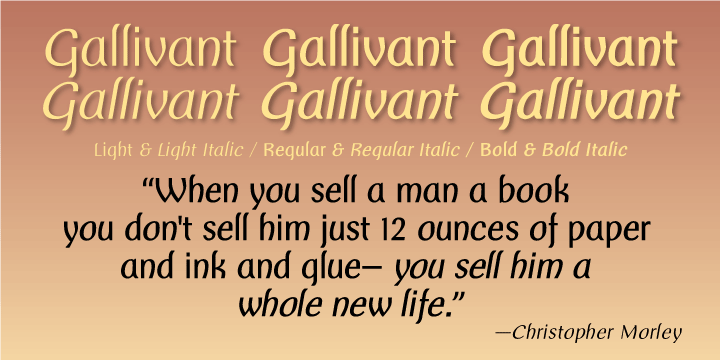
Gallivant
from Jonahfonts
Gallivant
Slightly condensed with a taller lowercase, Gallivant carries itself very well.
Similar to classic thick-and-thin san-serif faces with stems slightly facing inward.
for closer kerning as well wider spacing.